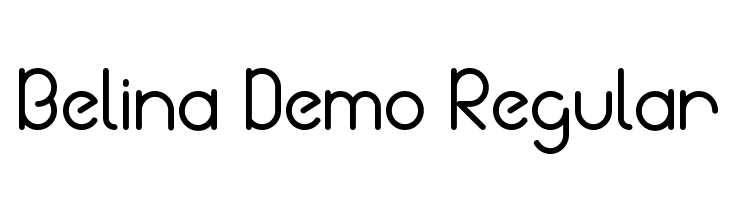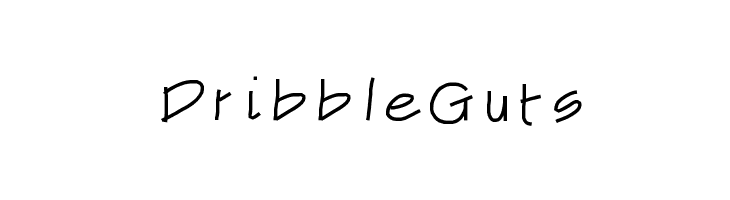
( Heber X. Arroyo Arce - www.artechni.com )
A modern, rounded sans-serif font with a clean and approachable style.
( JBantha Headquarters )
A modern, rounded font with a clean and approachable design.
( Jacquelyn Soh - fonts.jacquelynsoh.com/ )
A playful, handwritten font with a casual and approachable style.
( Joz Gandoz - creativemarket.com/jozgandoz )
A modern, rounded font with a clean and approachable style.
( Joz Gandoz - creativemarket.com/jozgandoz )
A modern, rounded sans-serif font with clean lines and geometric structure.
( Juan Casco - www.juancasco.net )
A modern, rounded sans-serif font with bold, clean lines.
( Khiro )
A modern, rounded font with a clean and approachable design.
( Krafti Lab - Onur Cem TAN - www.kraftilab.com )
A bold, rounded sans-serif font with a modern and approachable style.
( Levi Szekeres - www.loremipsum.ro )
A bold, rounded font with a modern and approachable style.
( Libby )
A playful, informal handwritten font with a casual and approachable style.